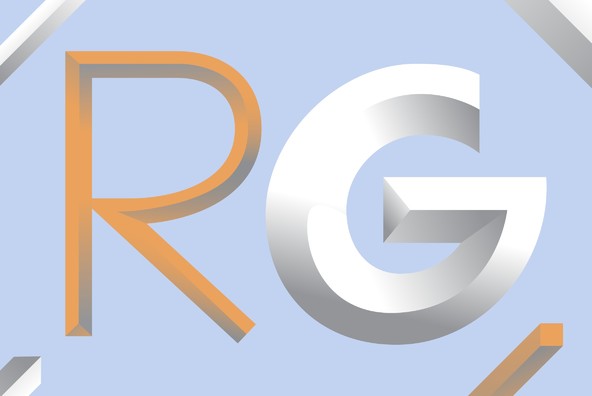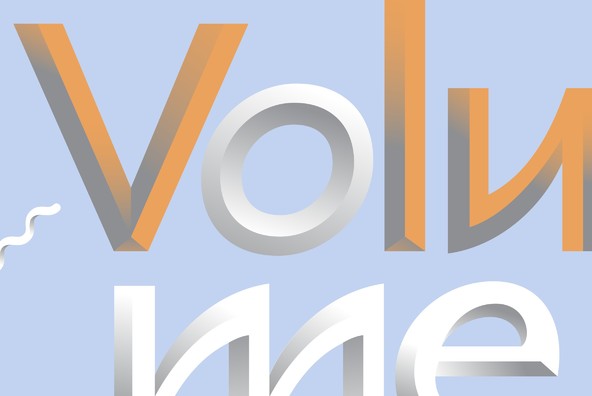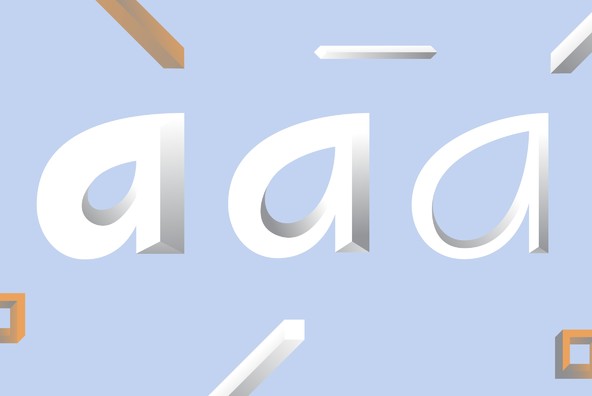
Sharktooth is a lively and somewhat geometric design based loosely on Mark Simonson's earlier typeface Felt Tip Roman. It suitable for either display or text and includes support for most Western- and Central-European languages.
Sharktooth is a lively and somewhat geometric design based loosely on Mark Simonson's earlier typeface Felt Tip Roman. It suitable for either display or text and includes support for most Western- and Central-European languages. The Sharktooth Family includes three styles: Regular, Bold, and Heavy.